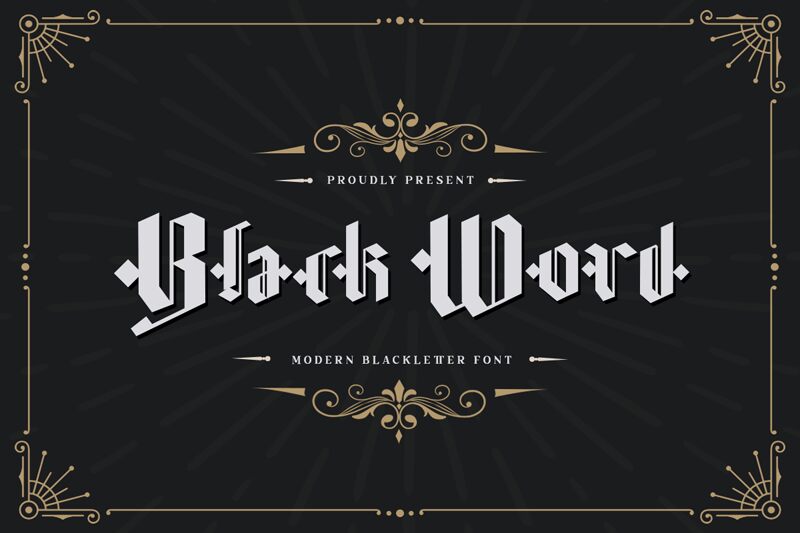
Black Word
Black Word font by Kong Font is a modern gothic typeface with intricate details and an ornate style. The decorative quality of this font blends historic elements and elegant forms in a stunning way. Each character connects to the next in a smooth dance, creating a flow that is similar to cursive text.